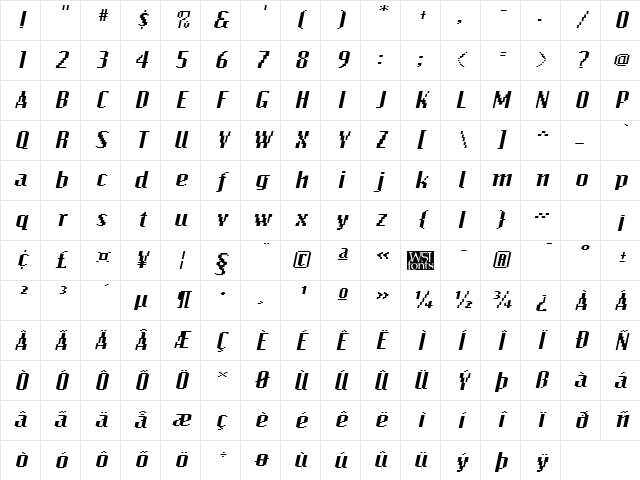
BitmapWide Italic Free Font
BitmapWide Italic
BitmapWide Family
Complete BitmapWide Italic glyph index. Displaying only characters natively supported by BitmapWide Italic font.
Design Context for BitmapWide
BitmapWide is rooted in pixel-grid construction, making it a natural fit for game UI, retro computing aesthetics, and digital nostalgia projects. The slanted form adds forward momentum and visual energy.